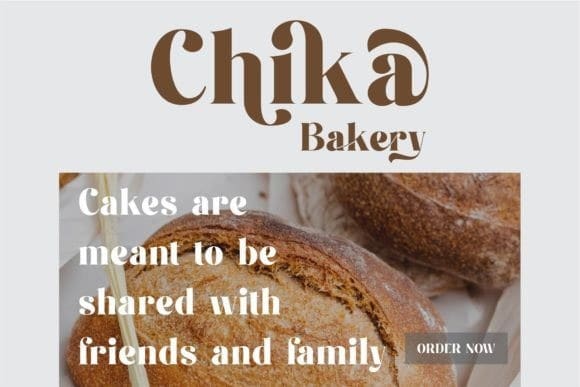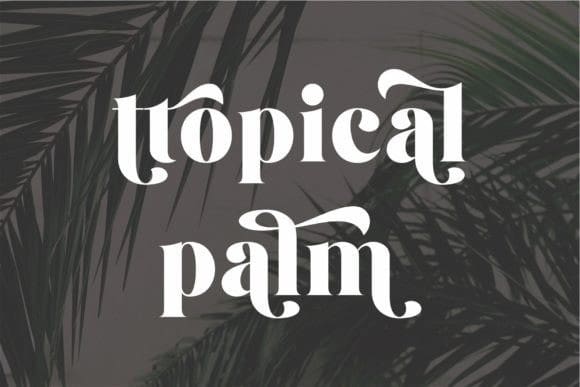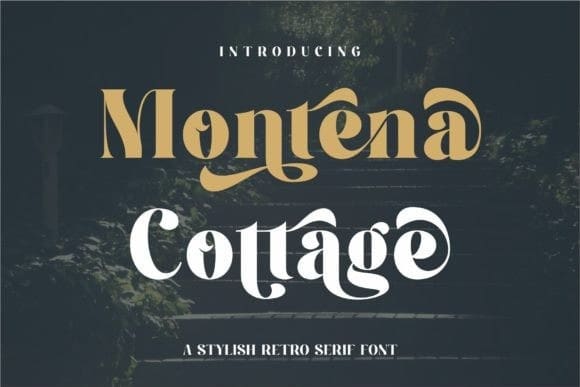
Montena Cottage Font
Montena Cottage Font, inspired by the famous minimalist logo perfect to design templates, brochures, videos, advertising branding, logos, invitations, layout designs, elegant crafting, beauty design, and more.